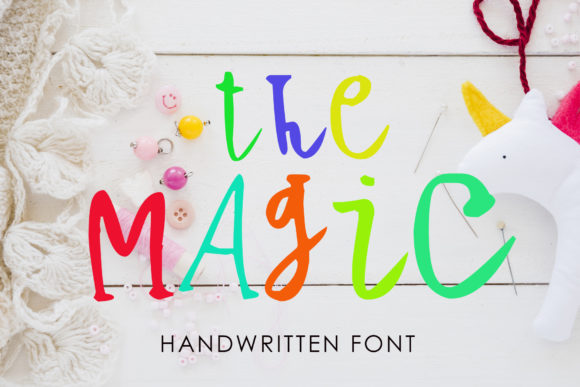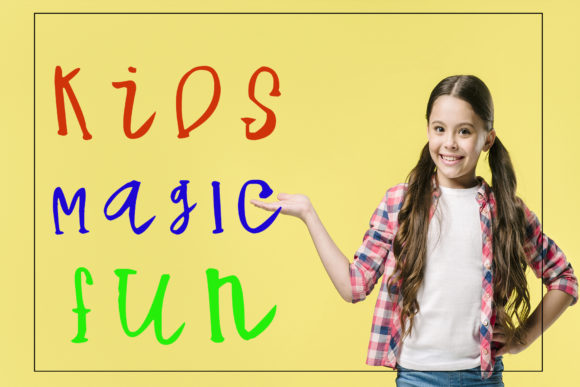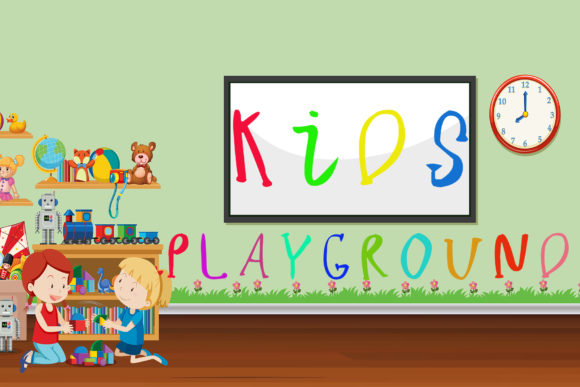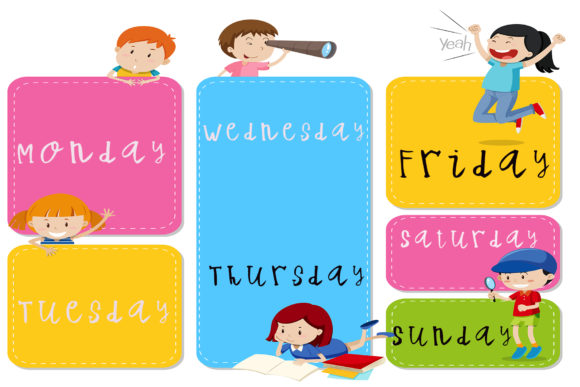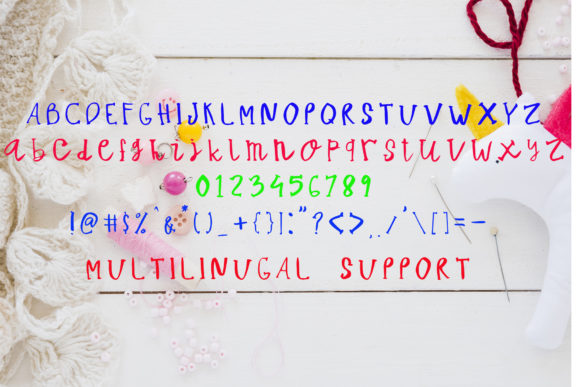
The Magic Font
About The Magic Font
The Magic is a friendly handwritten font. Use it for creating amazing logos, beautiful stationery and cute greeting cards.